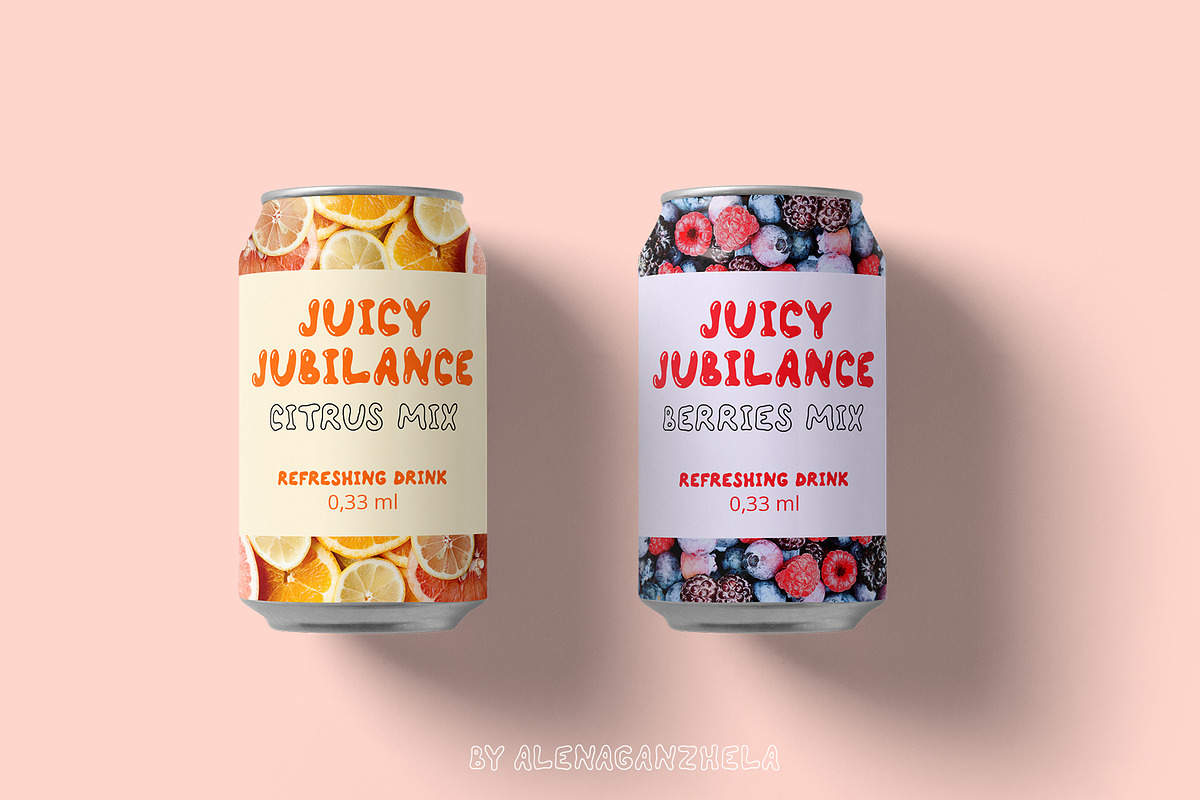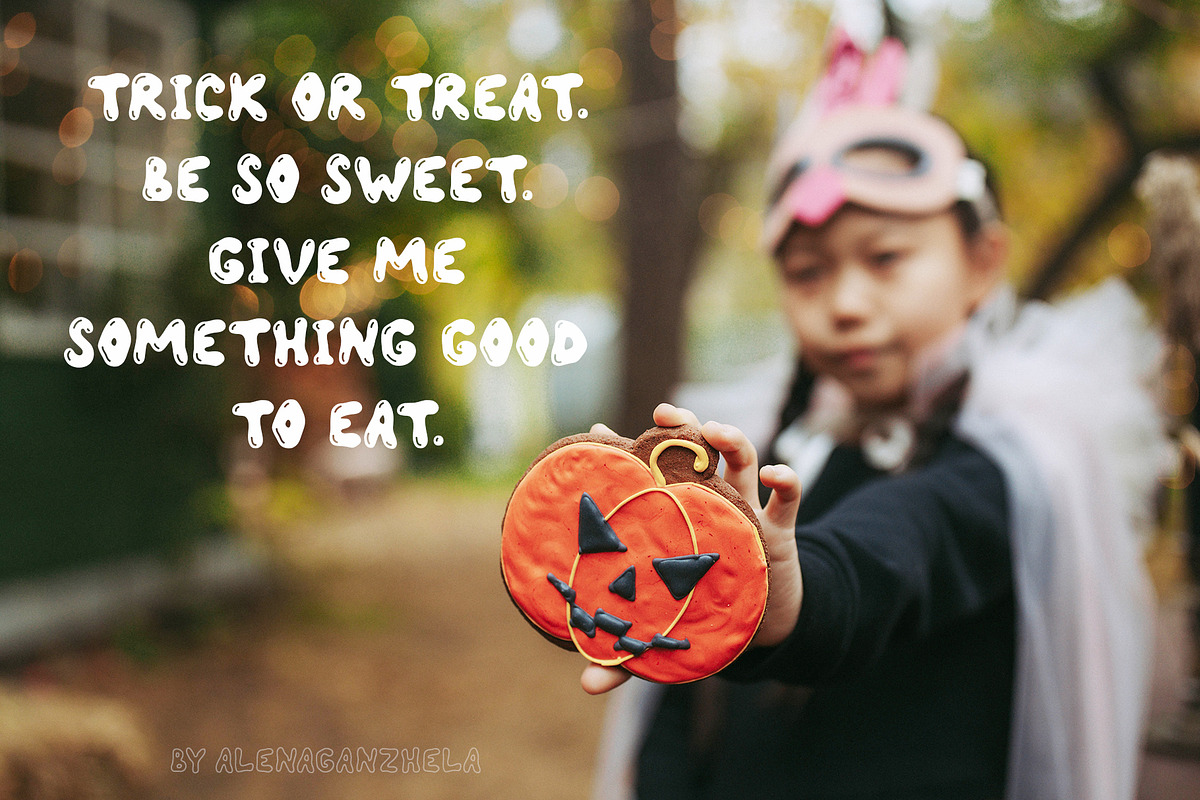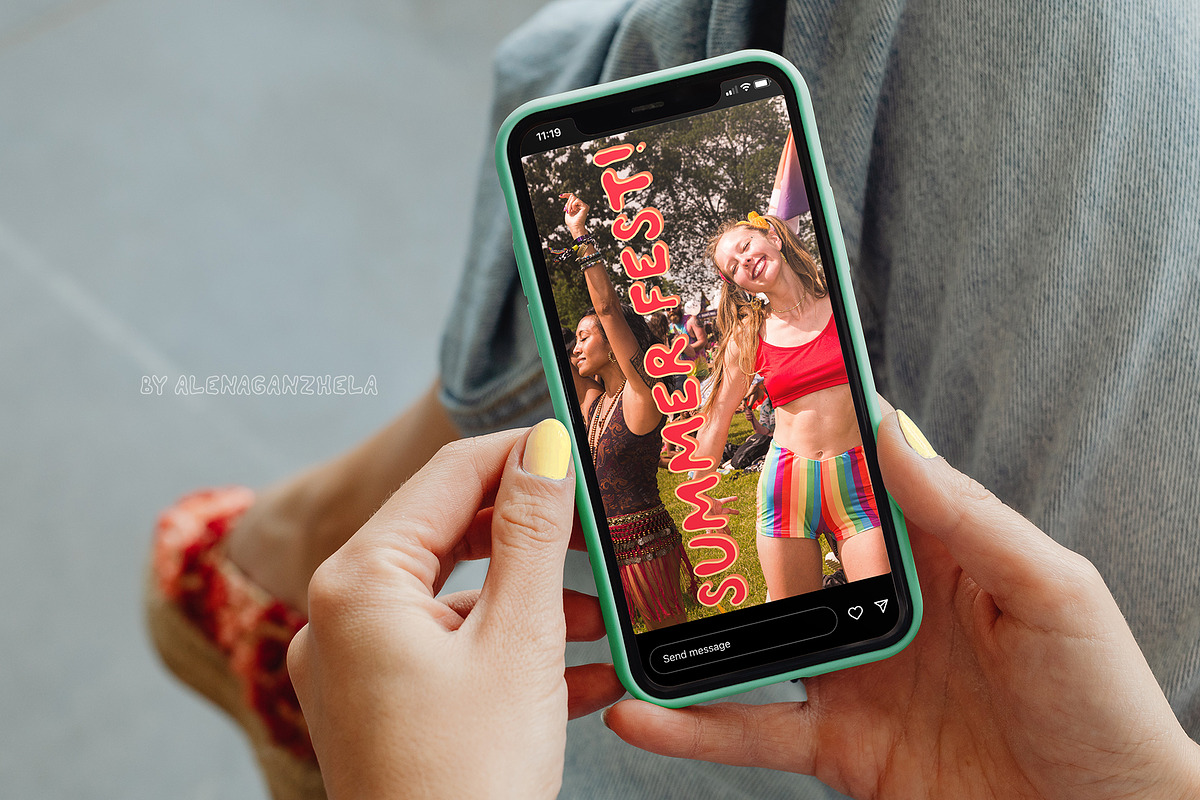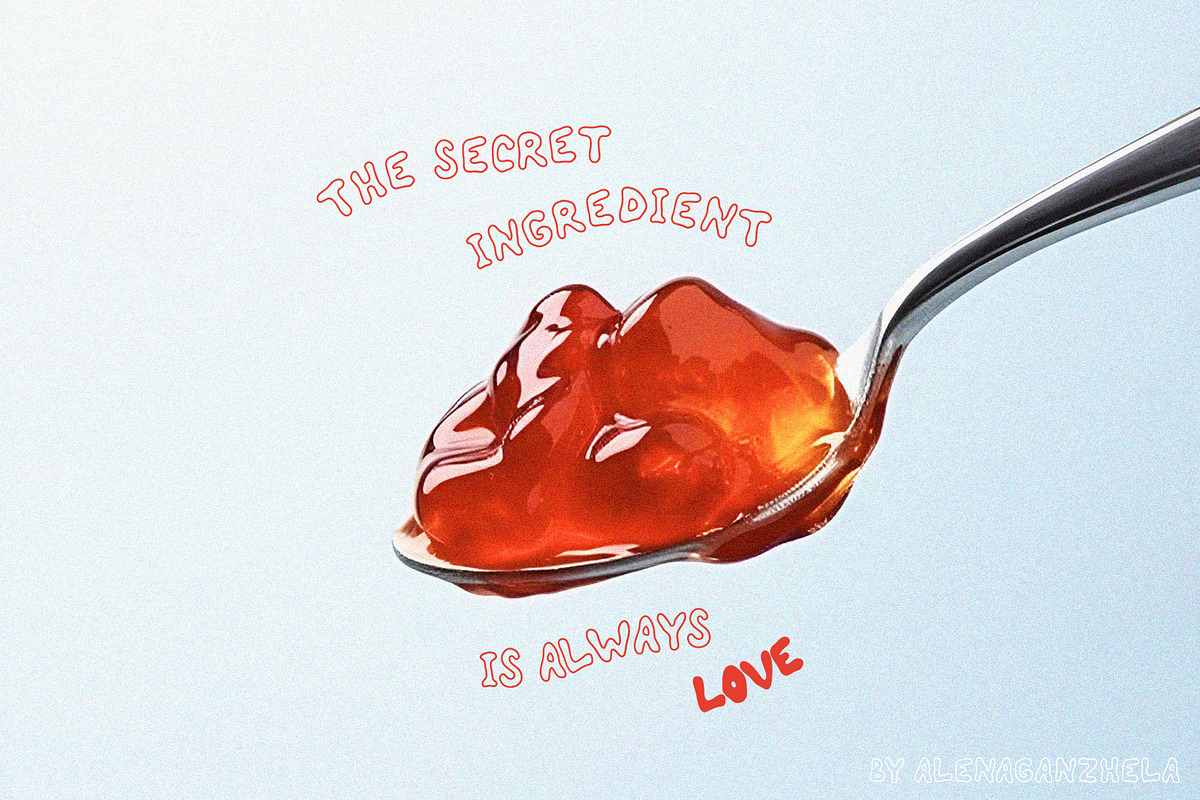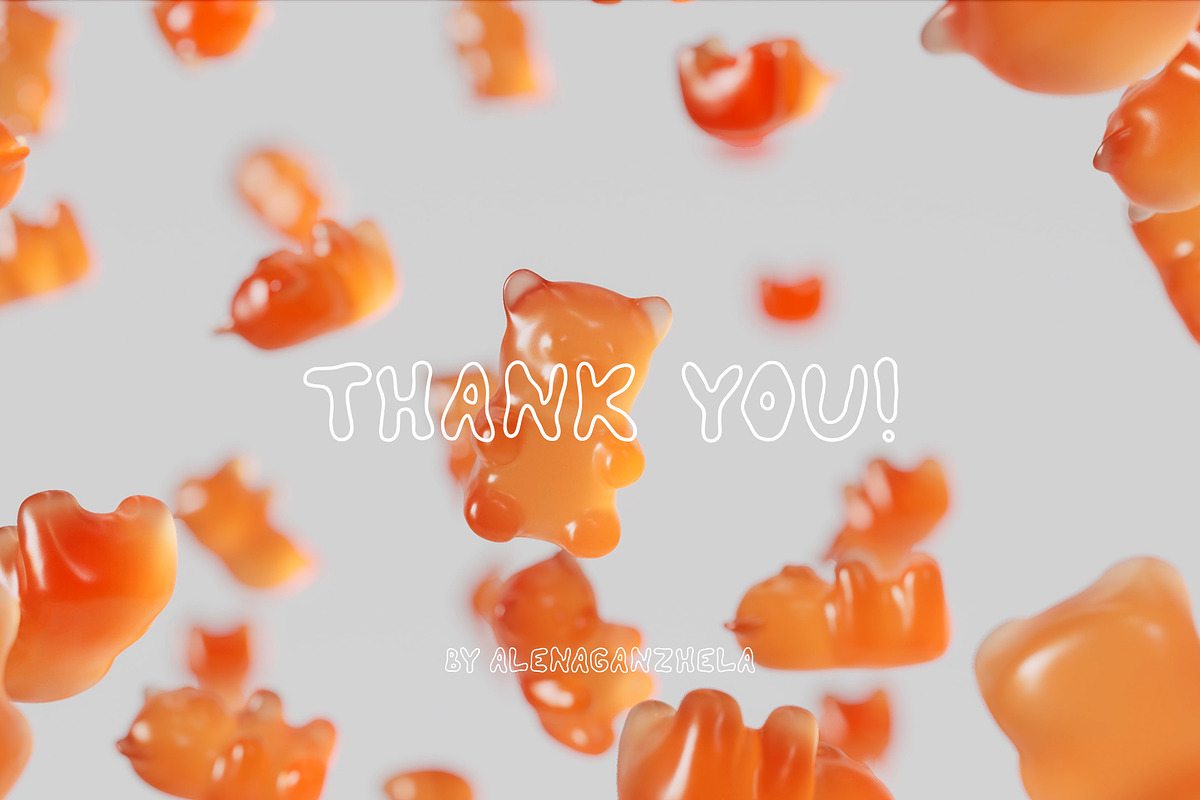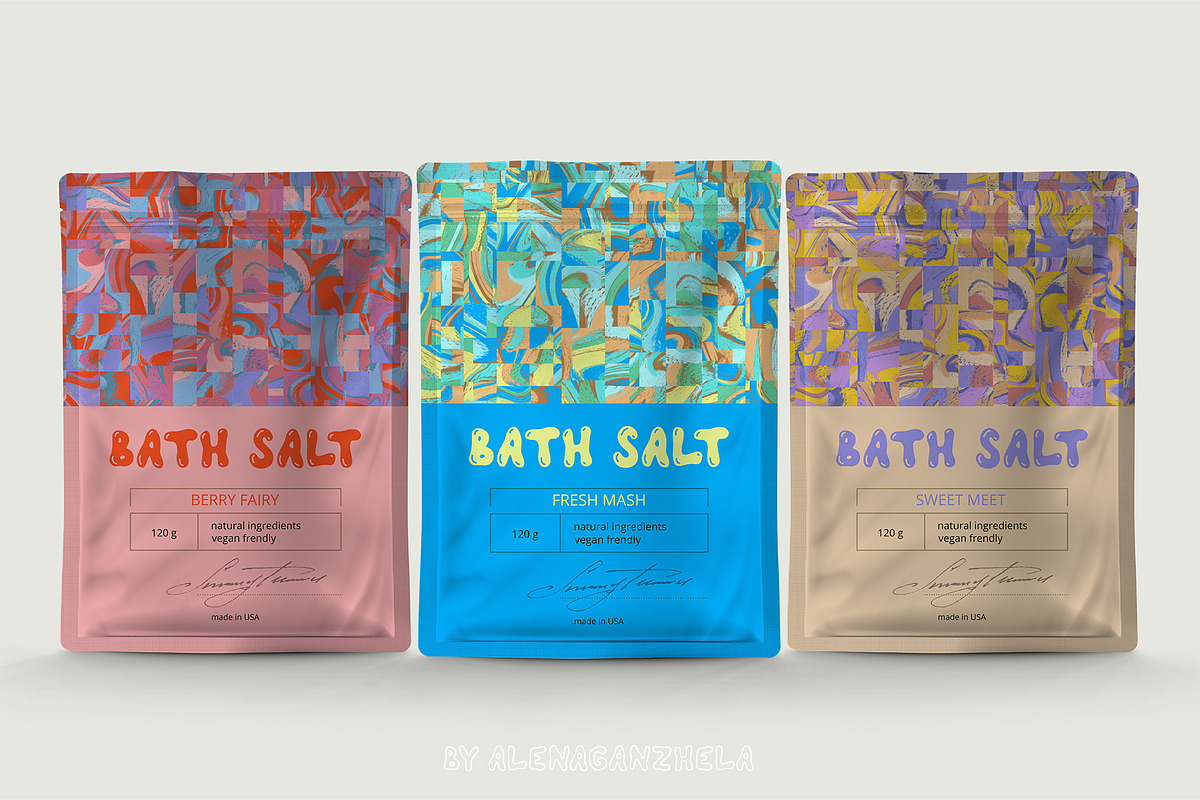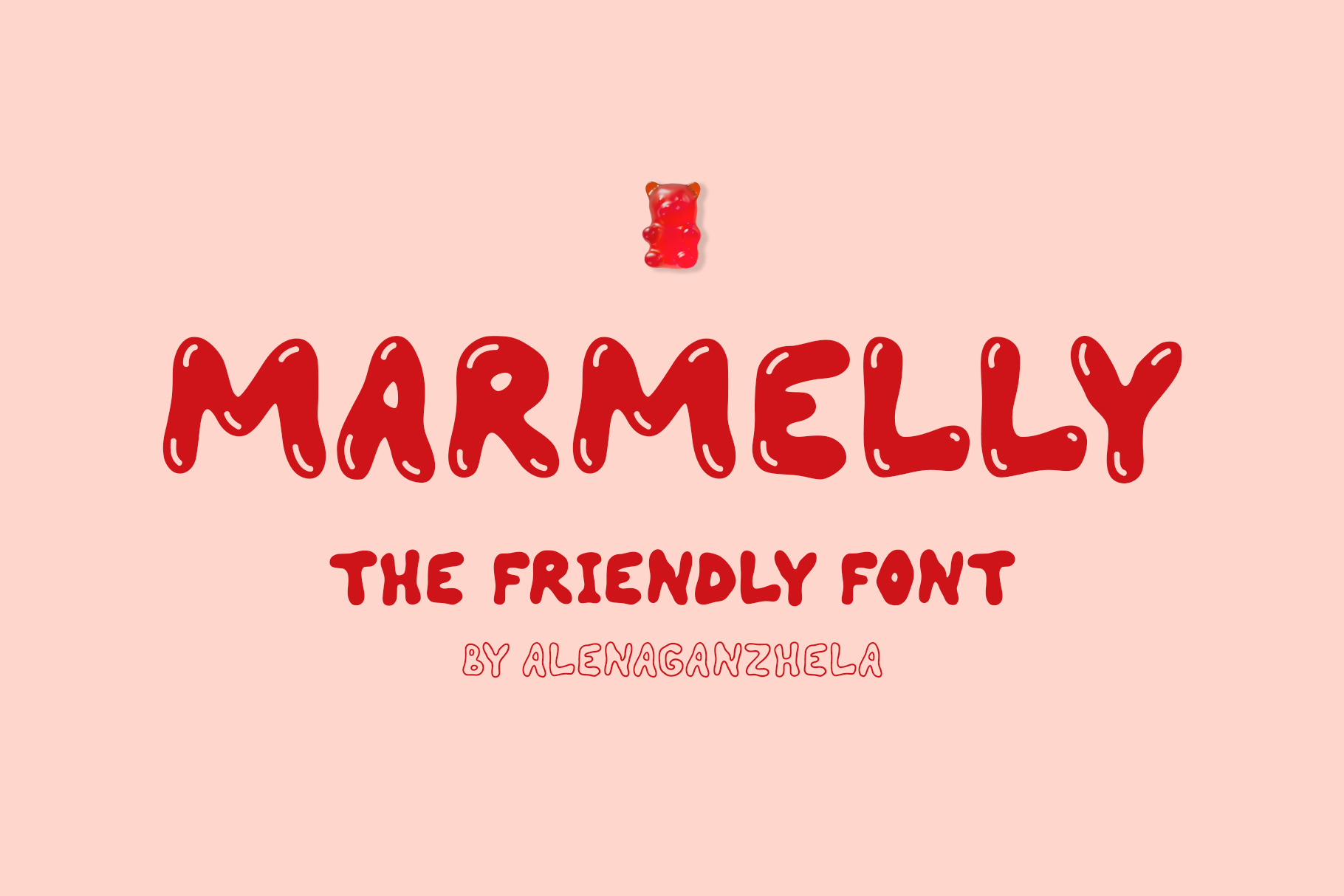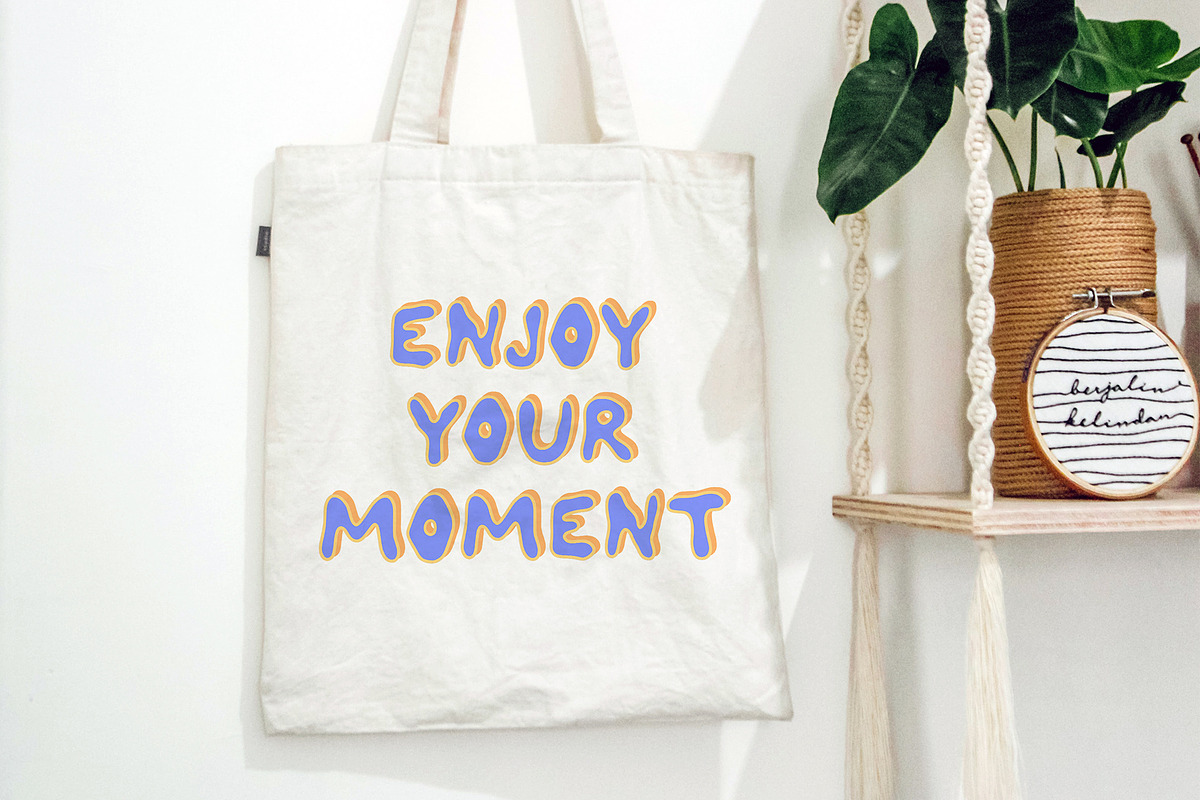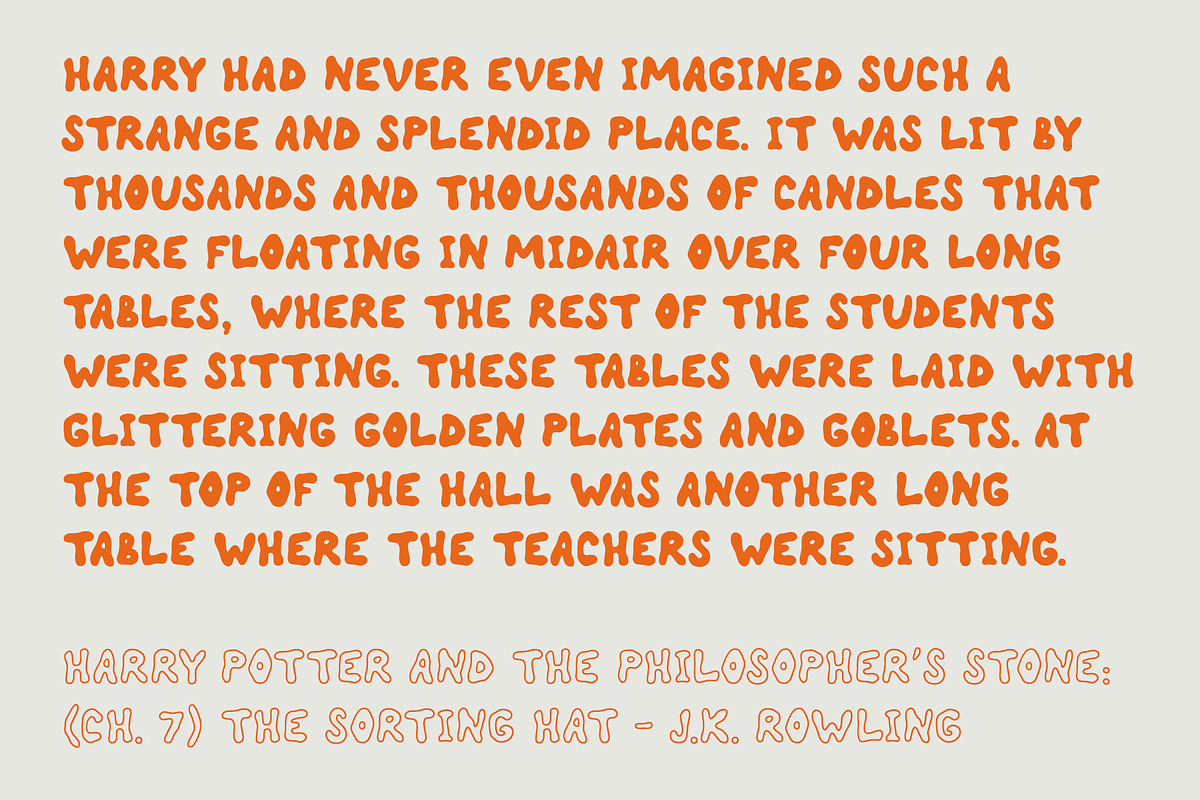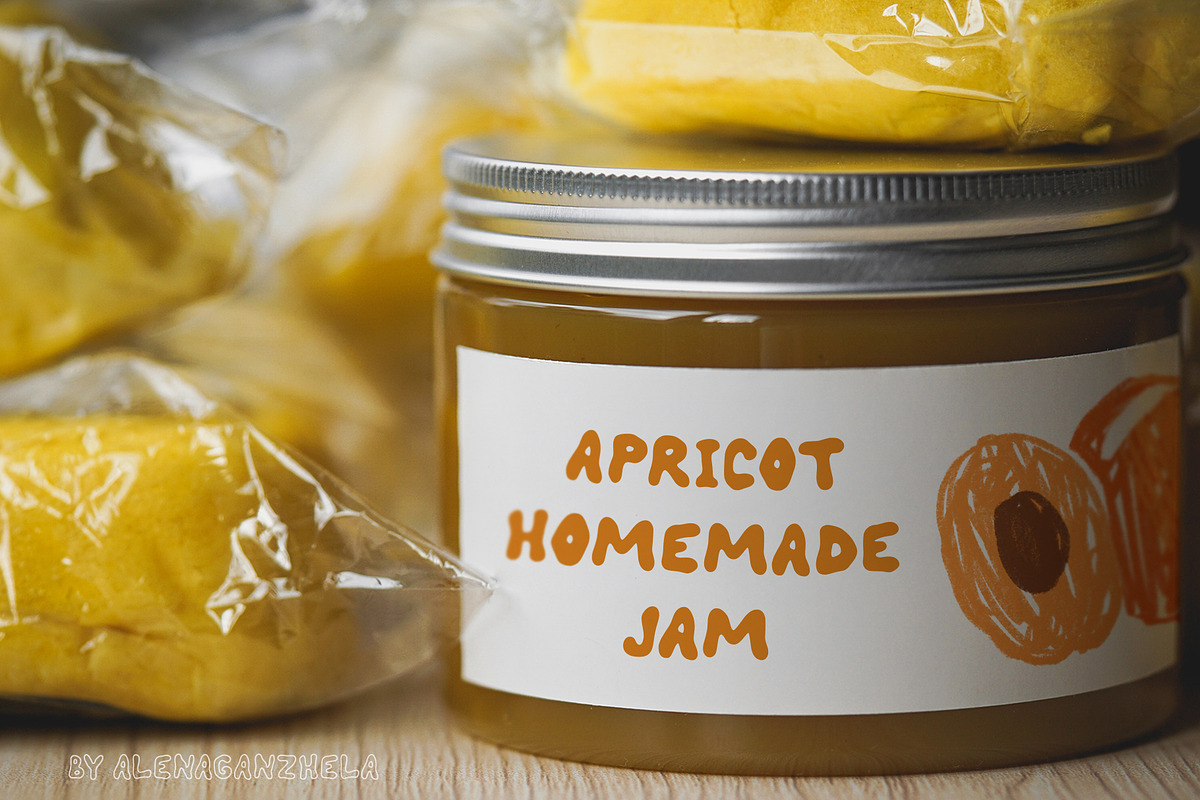
MARMELLY - playful friendly font
Marmelly font inspired by the shape of marmalade, with a warm and friendly mood. Smooth curves and touches will bring playful to any project. With versatile stylistic options, this typeface adapts to your creative vision, creating a unique and engaging experience. Dive into the sweet and friendly mood of Marmelly and watch your projects come to life with a touch of sweet and a friendly smile. This font is perfect for packaging, party invitations, home decor, greeting cards, book cover designs, unique social media posts, album covers, and much more.